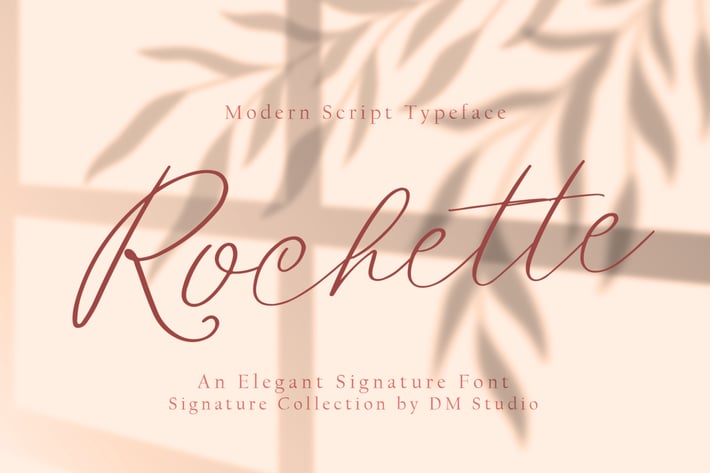
Rochette - Elegant Signature Font
Introducing, the modern script font : Rochette
Rochette is an elegant handwritten signature font, exclusively made for you.
Give your design more classy and unique touch with this gorgeous font.